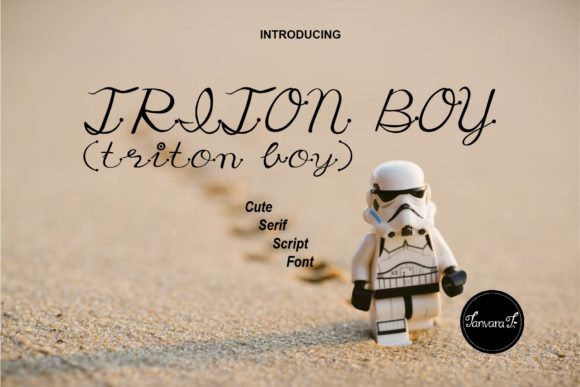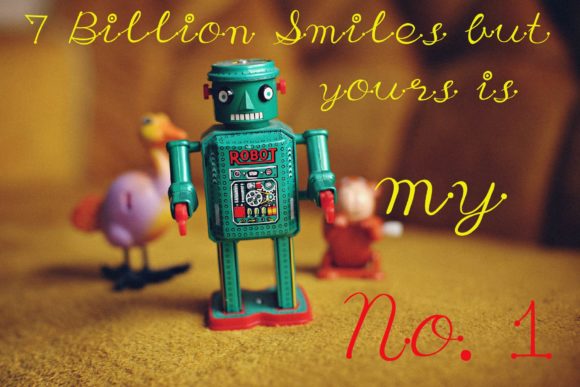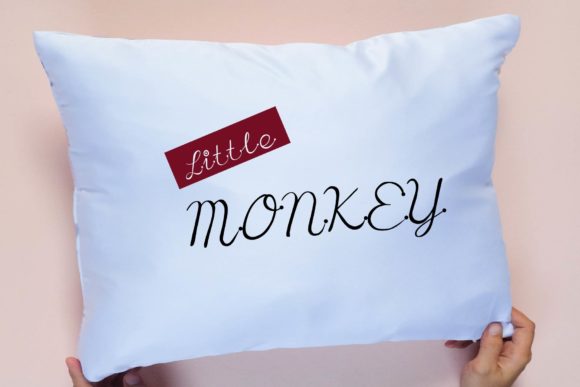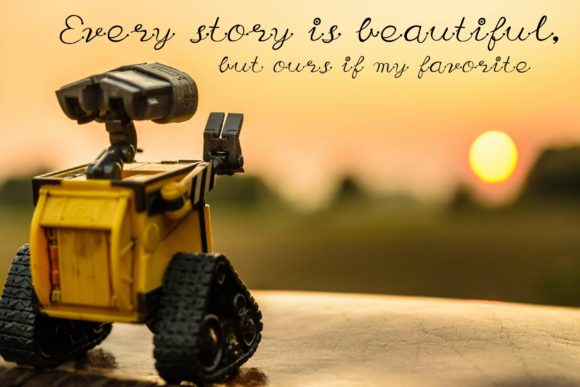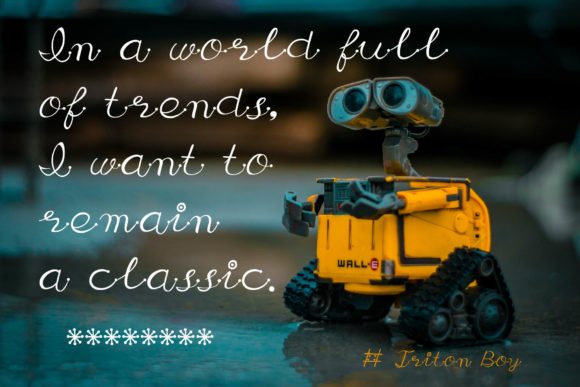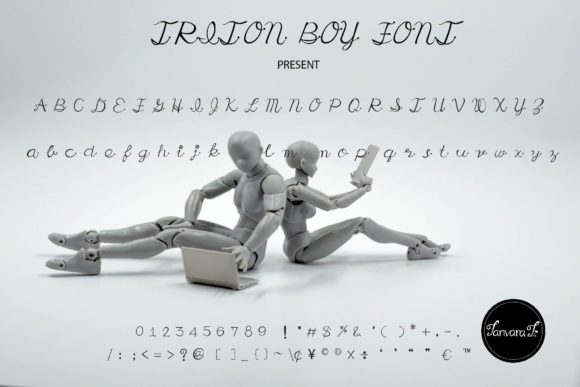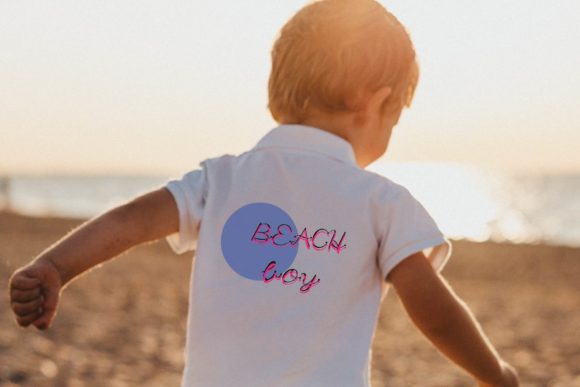
Triton Boy Font
About Triton Boy Font
Triton Boy is a whimsical handwritten font. Its original look will brighten up your designs! It’s perfect for logos, greeting cards, crafting projects, book covers and much more!